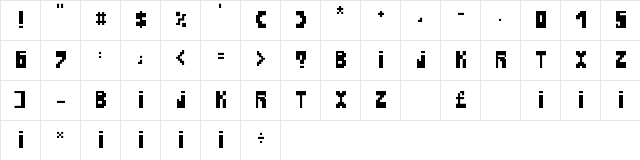
Televideo Regular
| Designer | Marika Sartori |
Design Context for Televideo Typeface
Televideo takes a measured approach to typography — its balanced proportions and neutral character make it a reliable workhorse for both digital and print work.